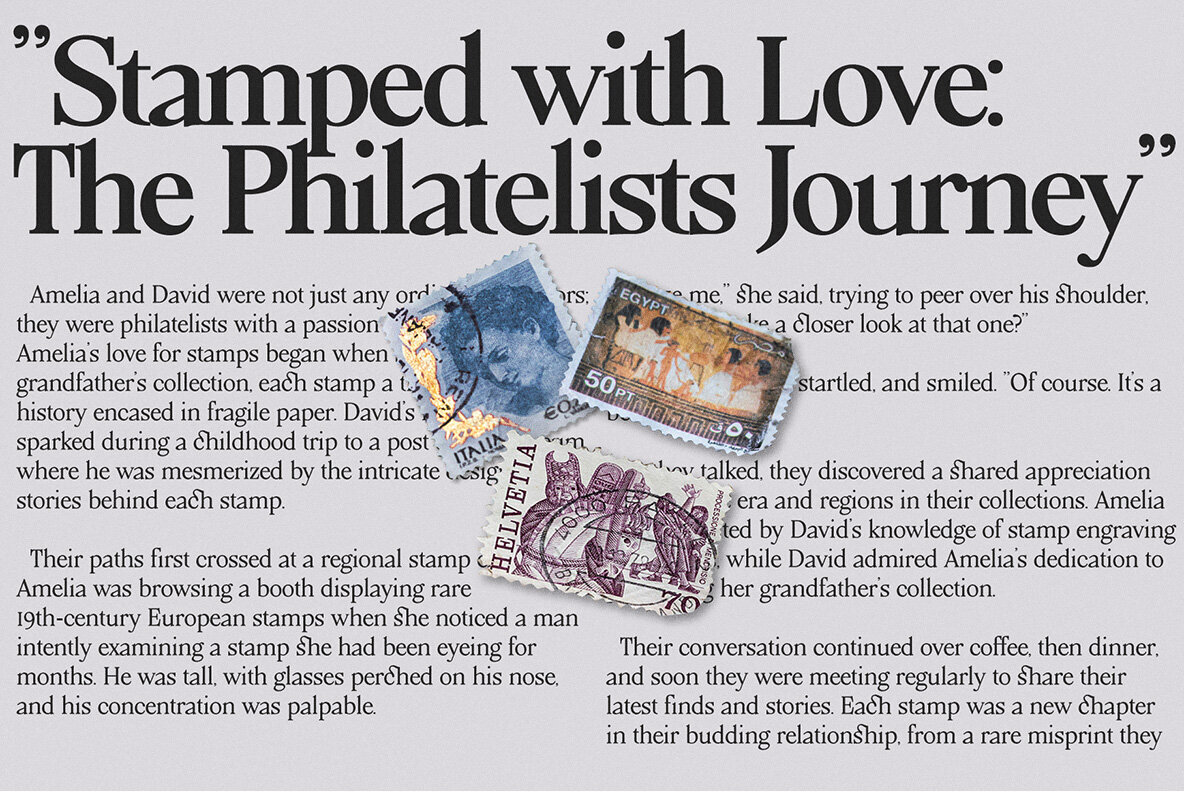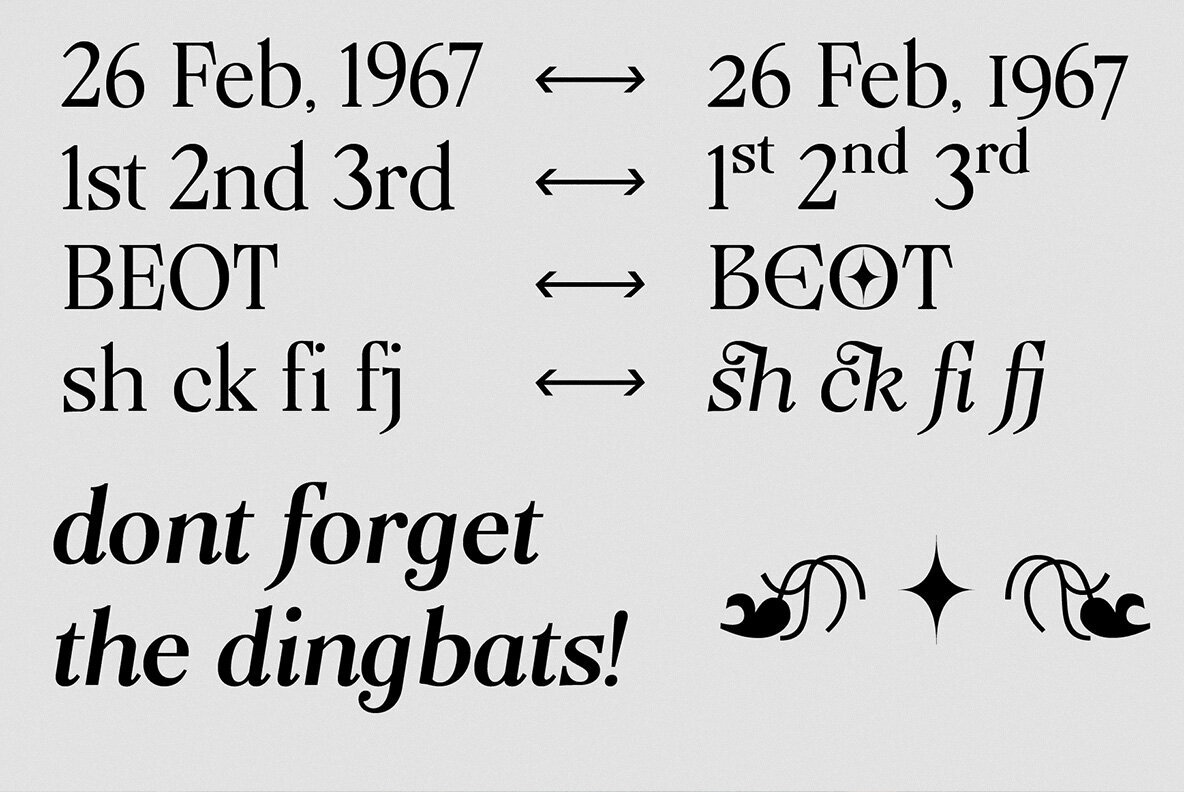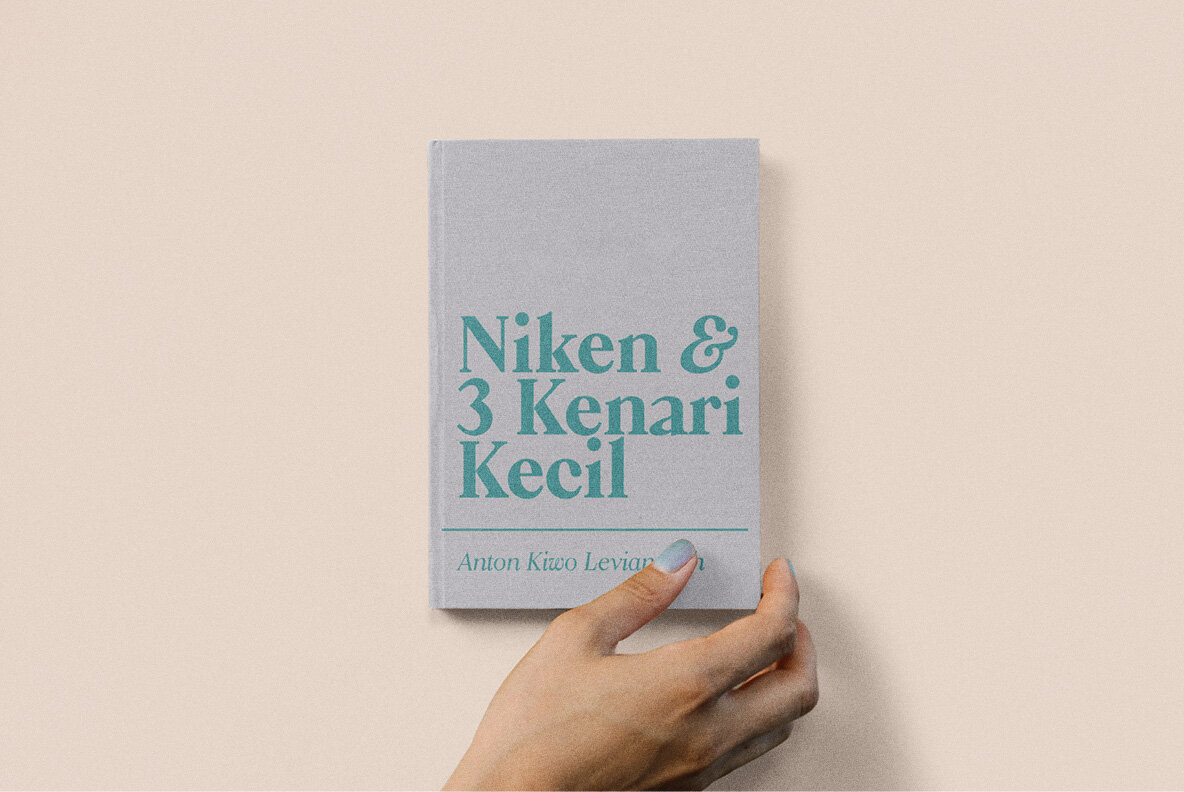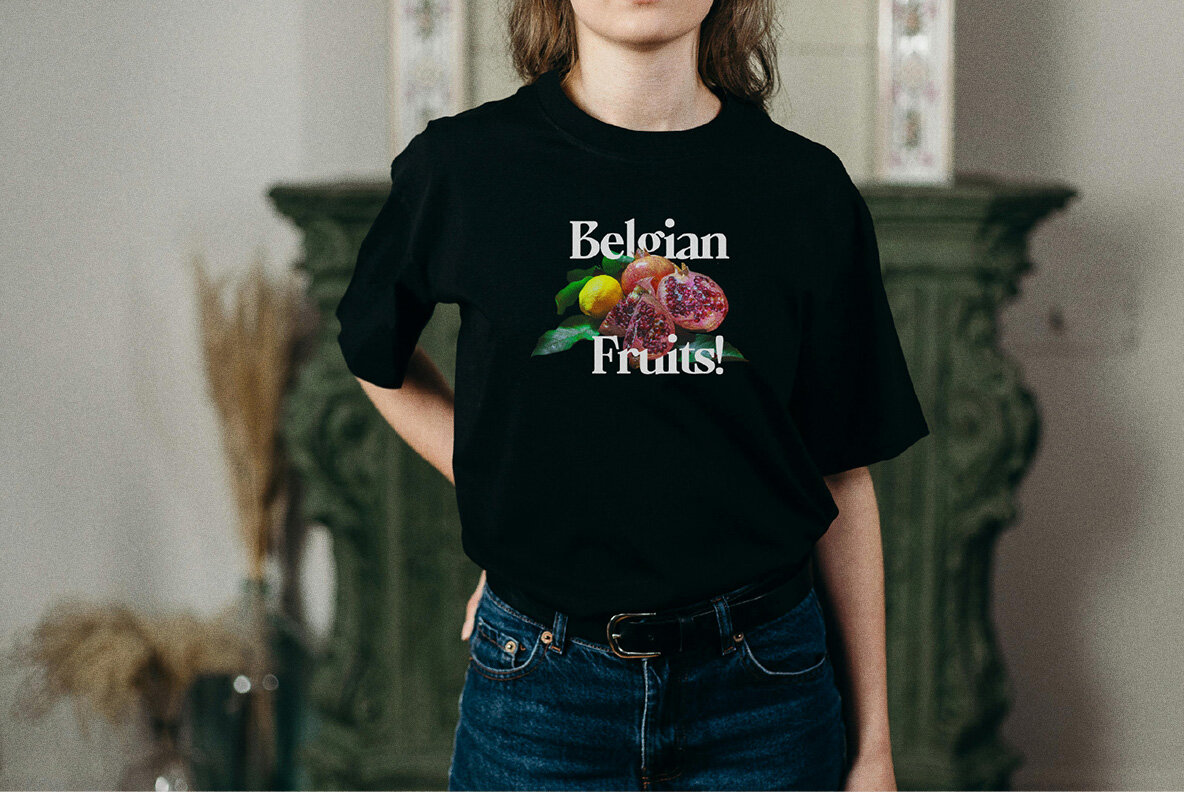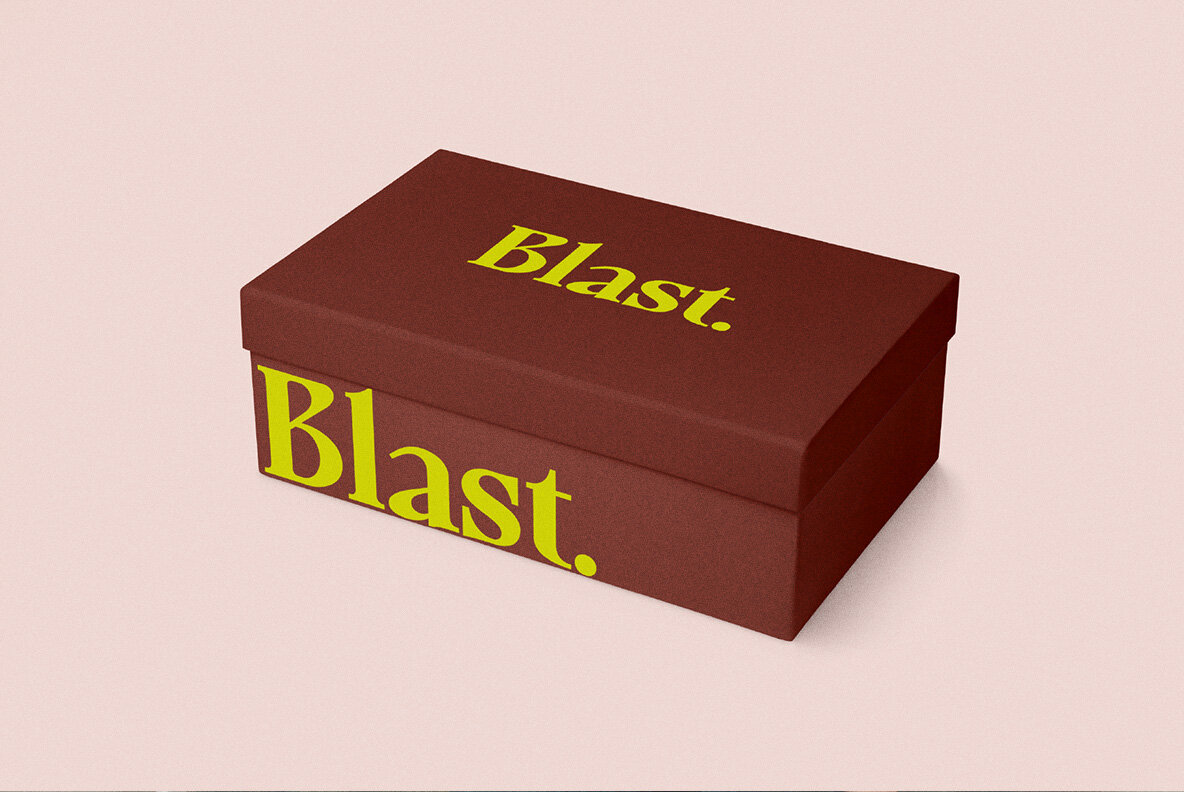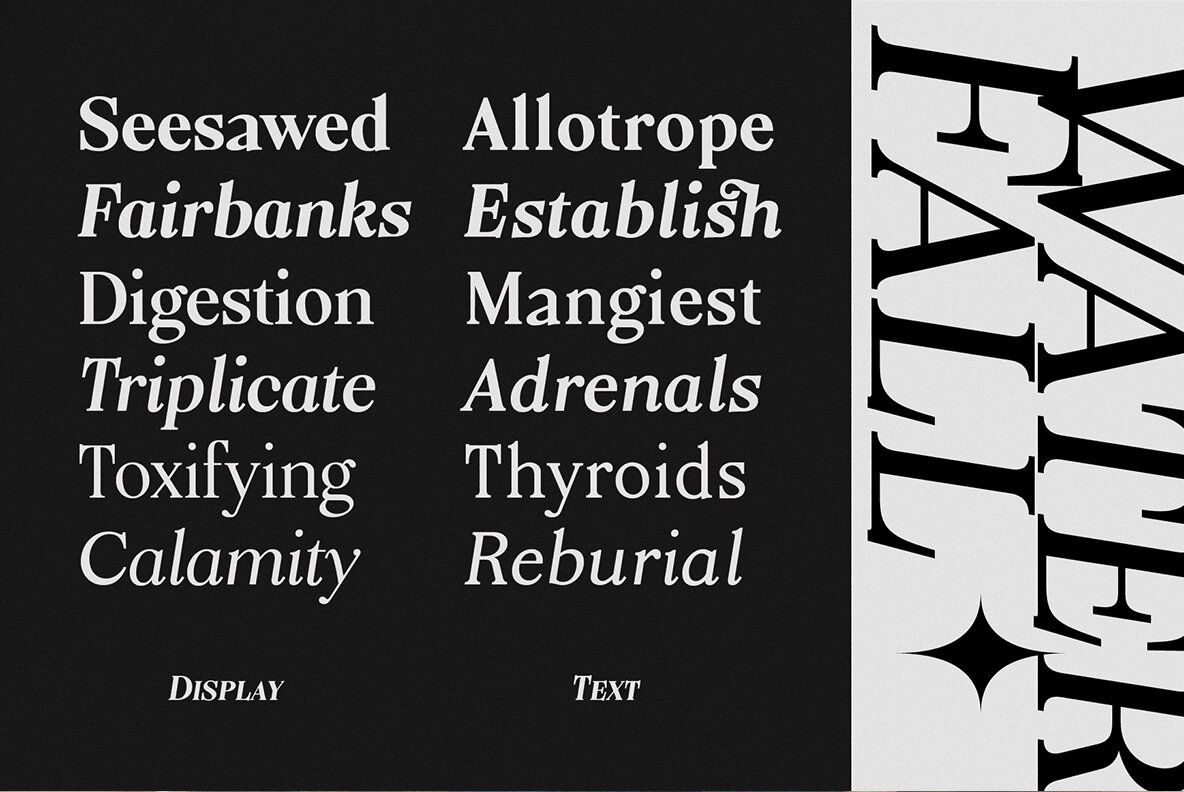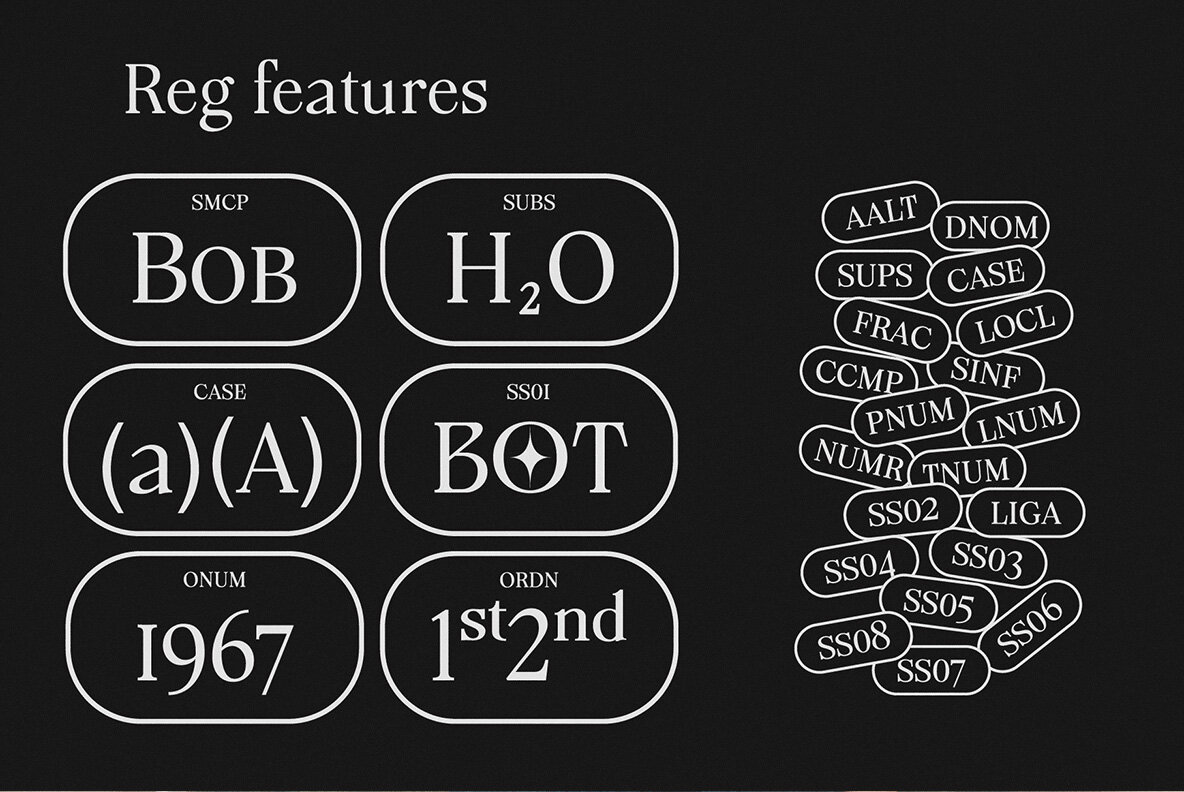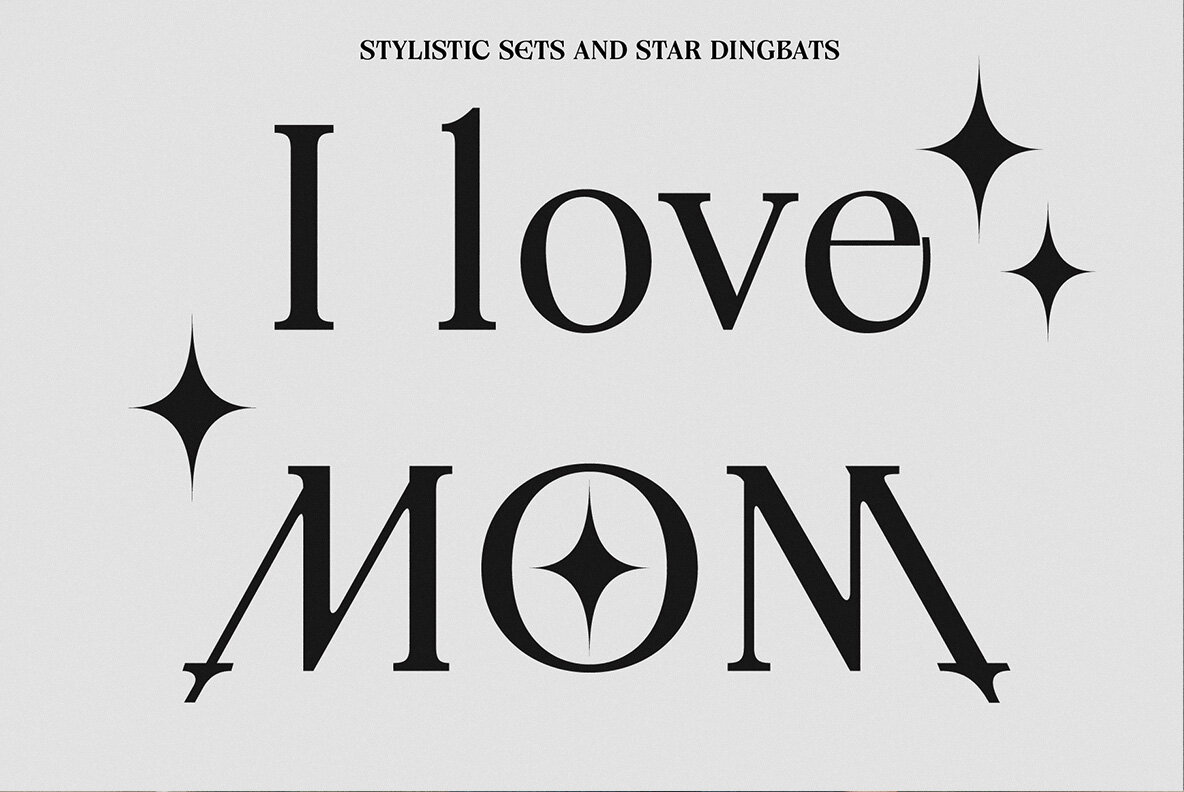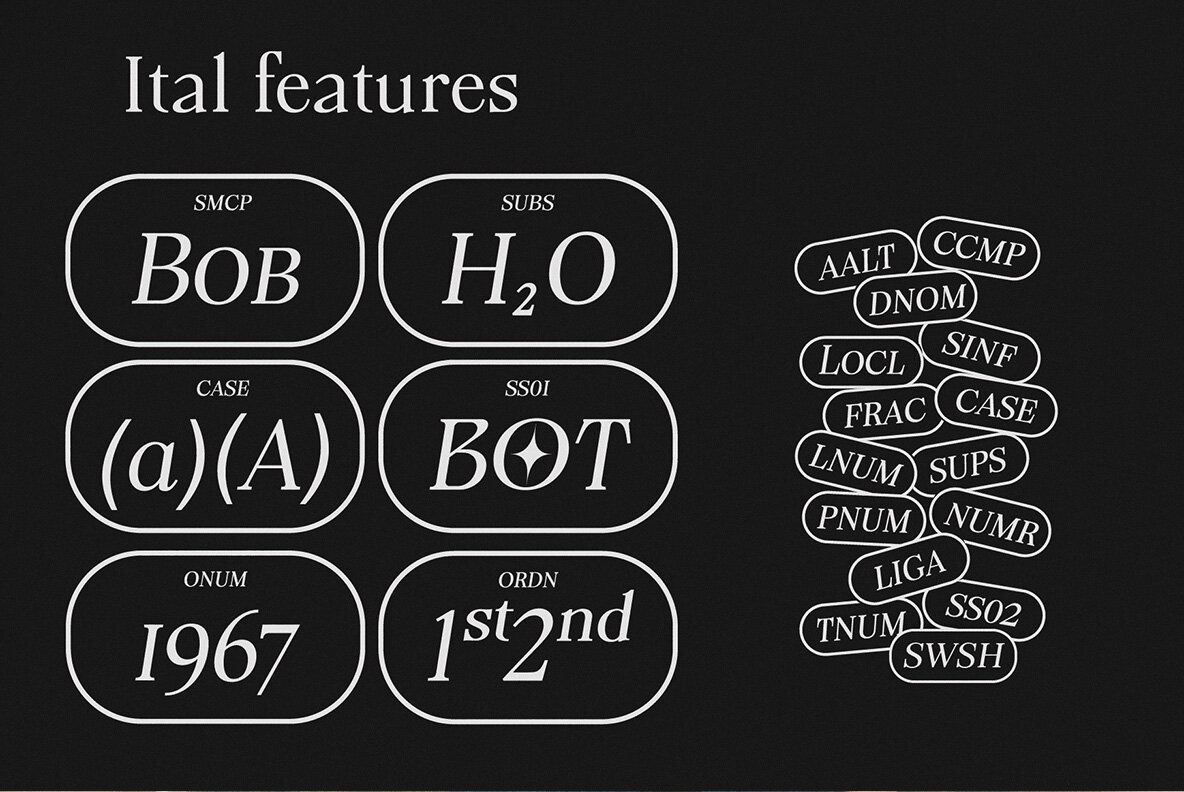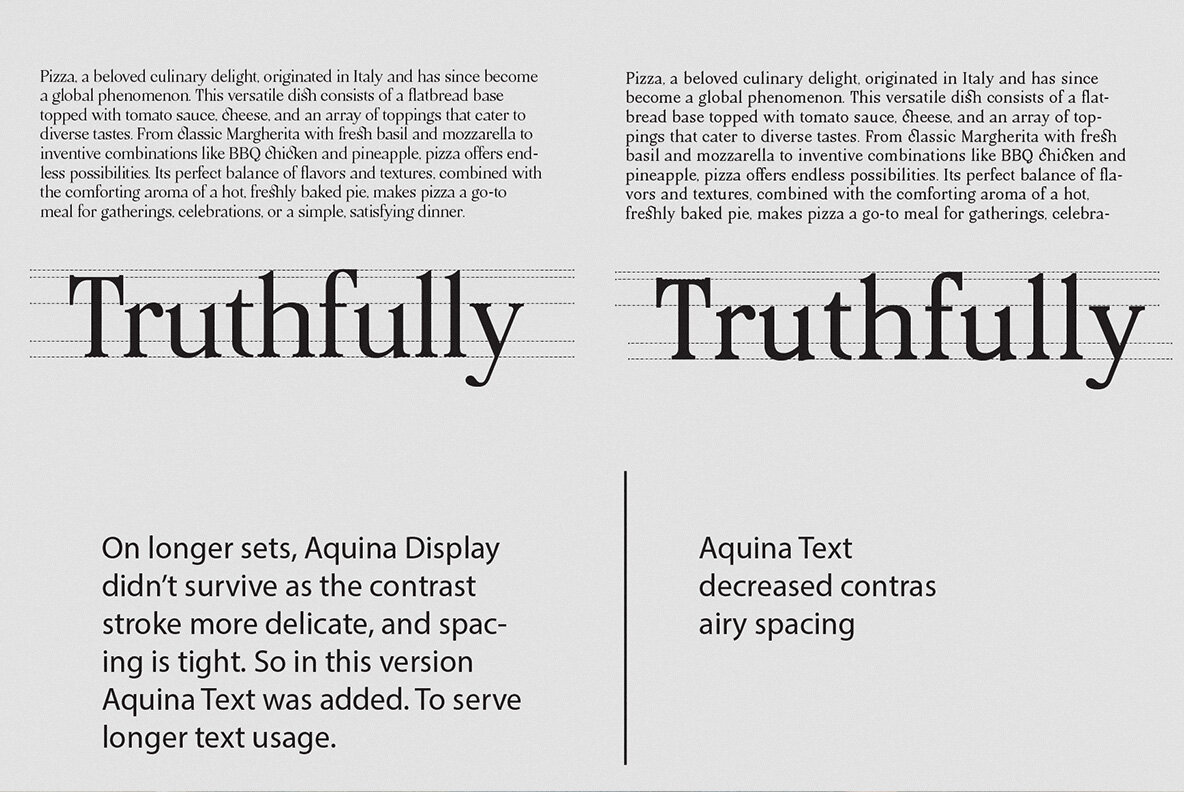
Aquina Font
Aquinas sounds like a beautiful typeface! Its blend of old-style serifs and calligraphic inspiration must give it a timeless and elegant feel, perfect for both body text and headings. The calligraphic sense likely adds a touch of warmth and personality to the characters, making it engaging and easy to read even in longer passages. It sounds like a versatile choice for various design projects, from traditional to contemporary contexts. Feature List: Language Support: All pictures didn't include on files. Head to my behance profile for Type Specimen and Tech Spec.